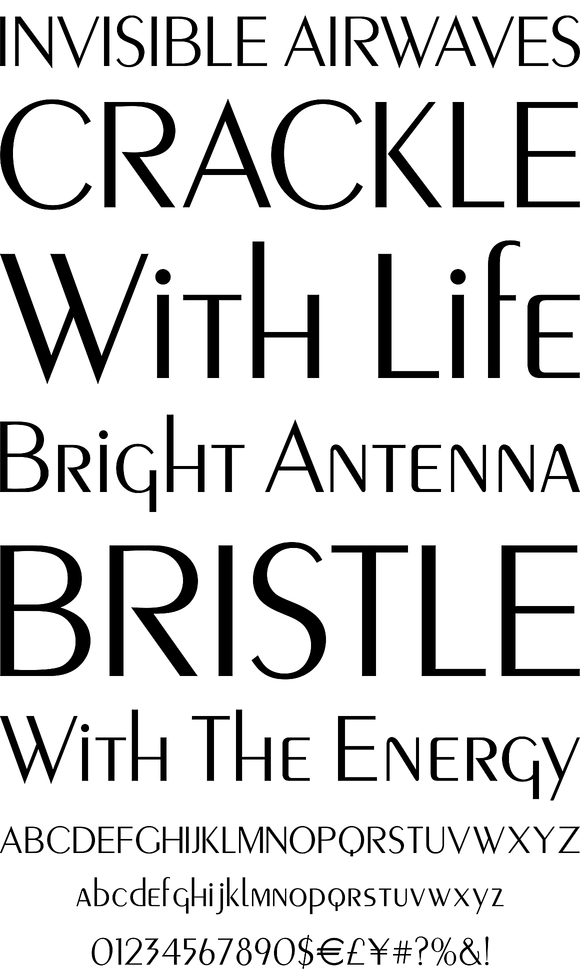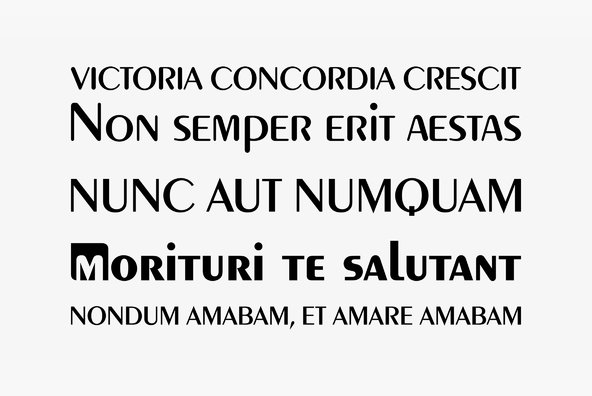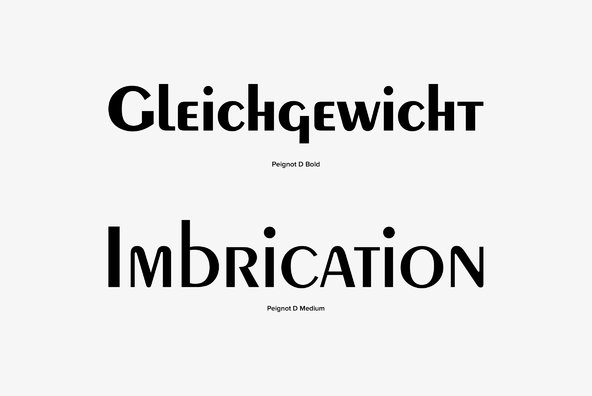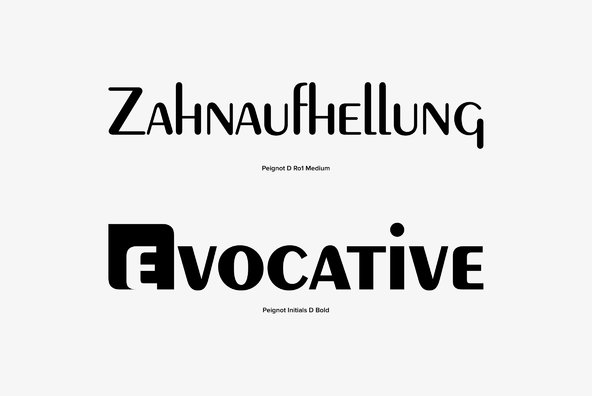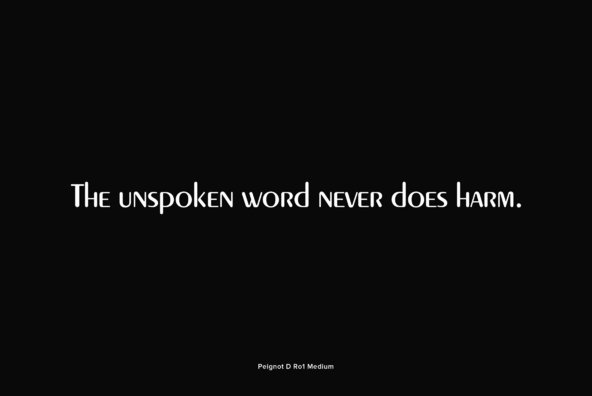
Peignot Font
Peignot was designed by Adolphe Mouron Cassandre and Charles Peignot in 1936. Peignot is a classic type design that is well known for its avante garde lowercase letters. Great from retro and fashion themed projects.